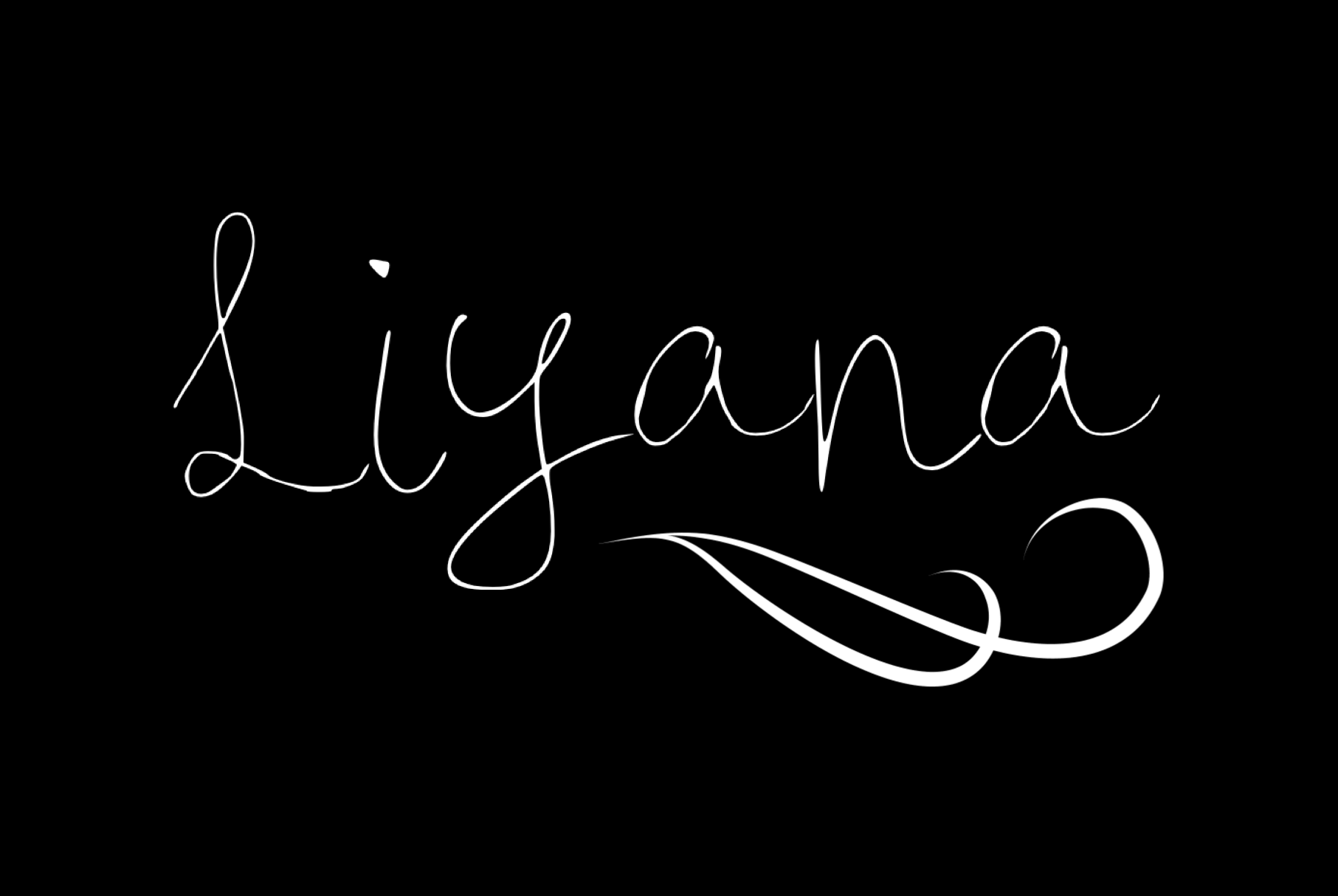
Liyana Handwritten Script Font
Liyana is a handwritten font. Ideal for logos, handwritten quotes, product packaging, header, poster, merchandise, social media and greeting cards